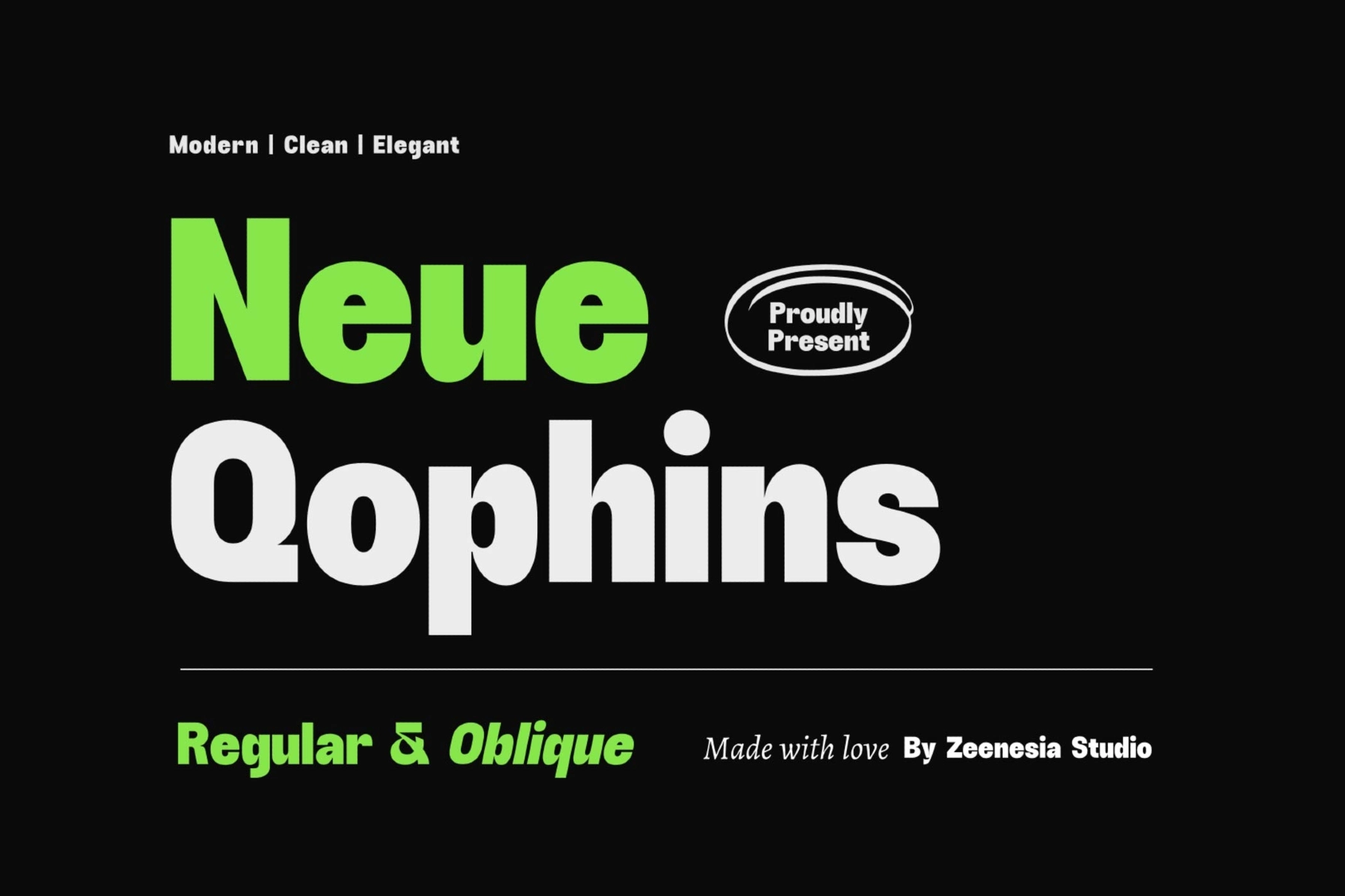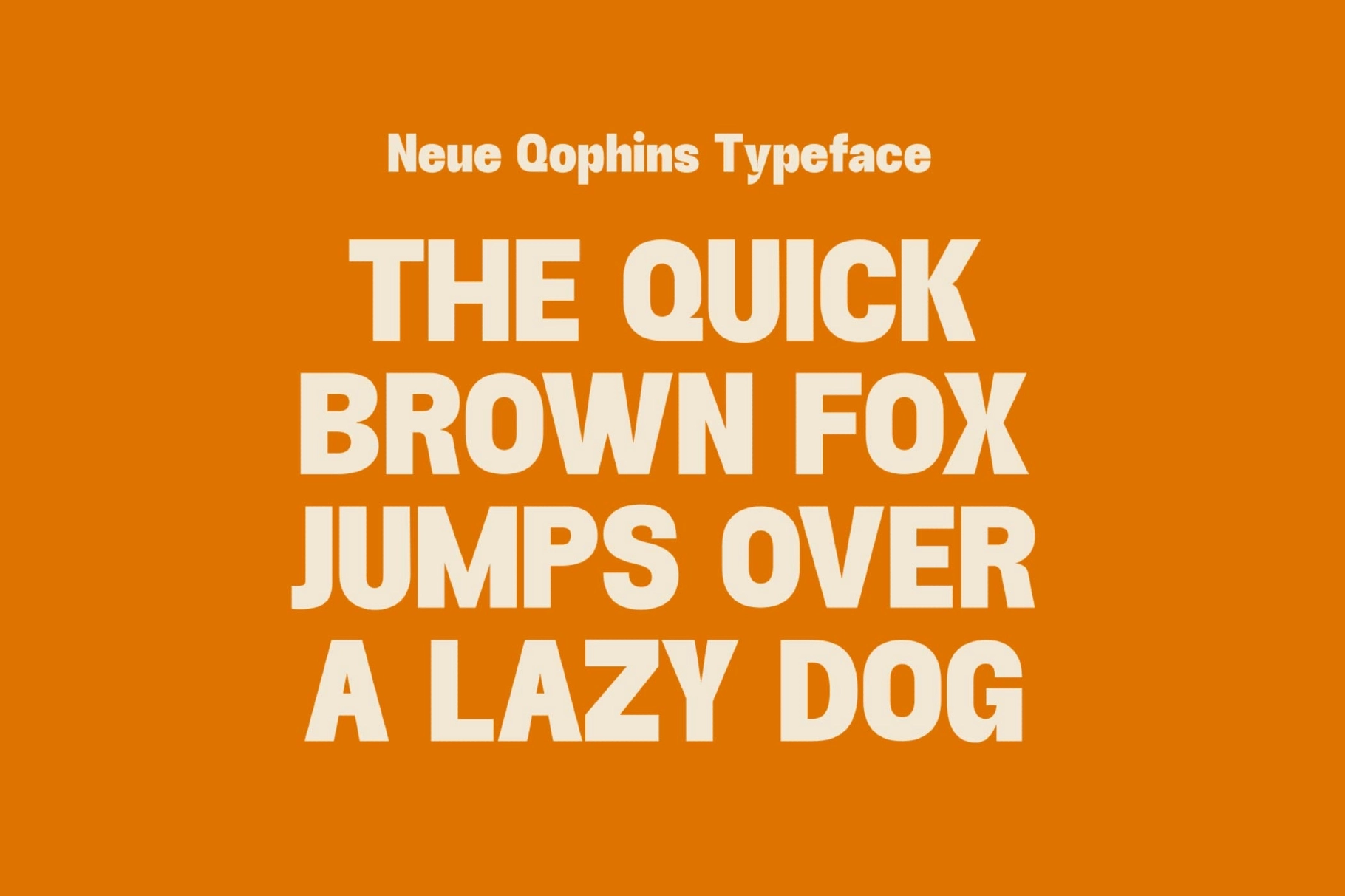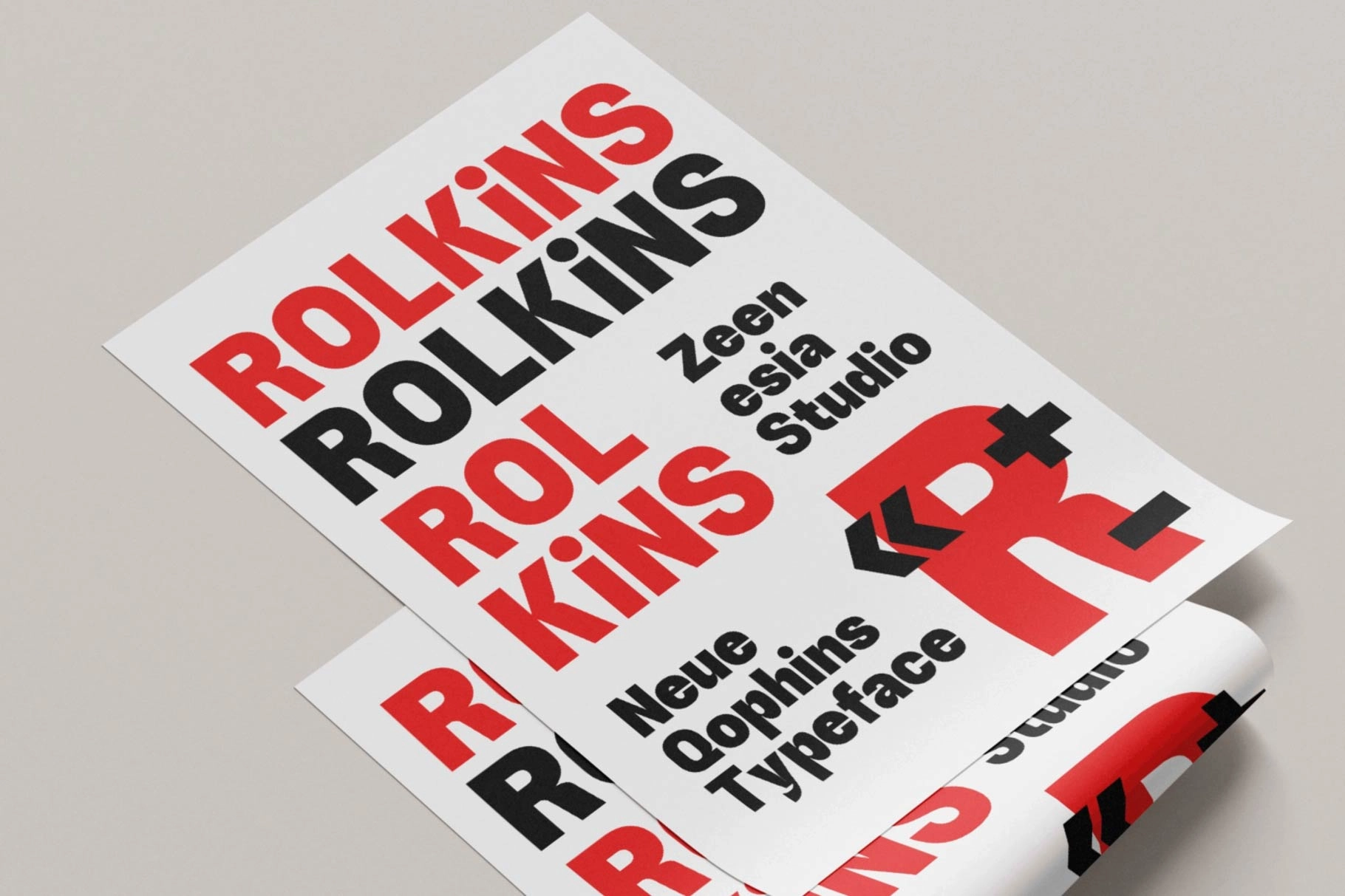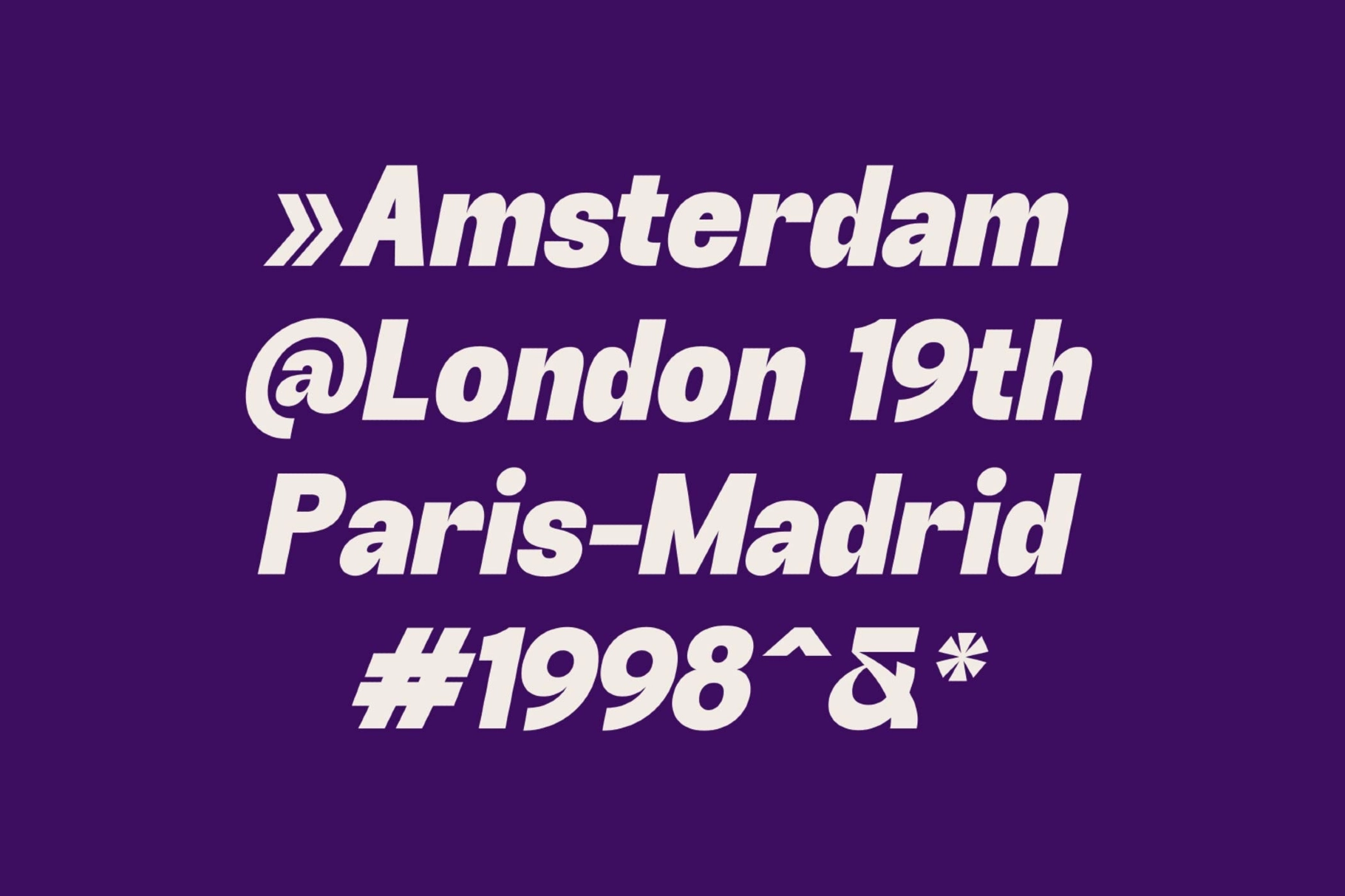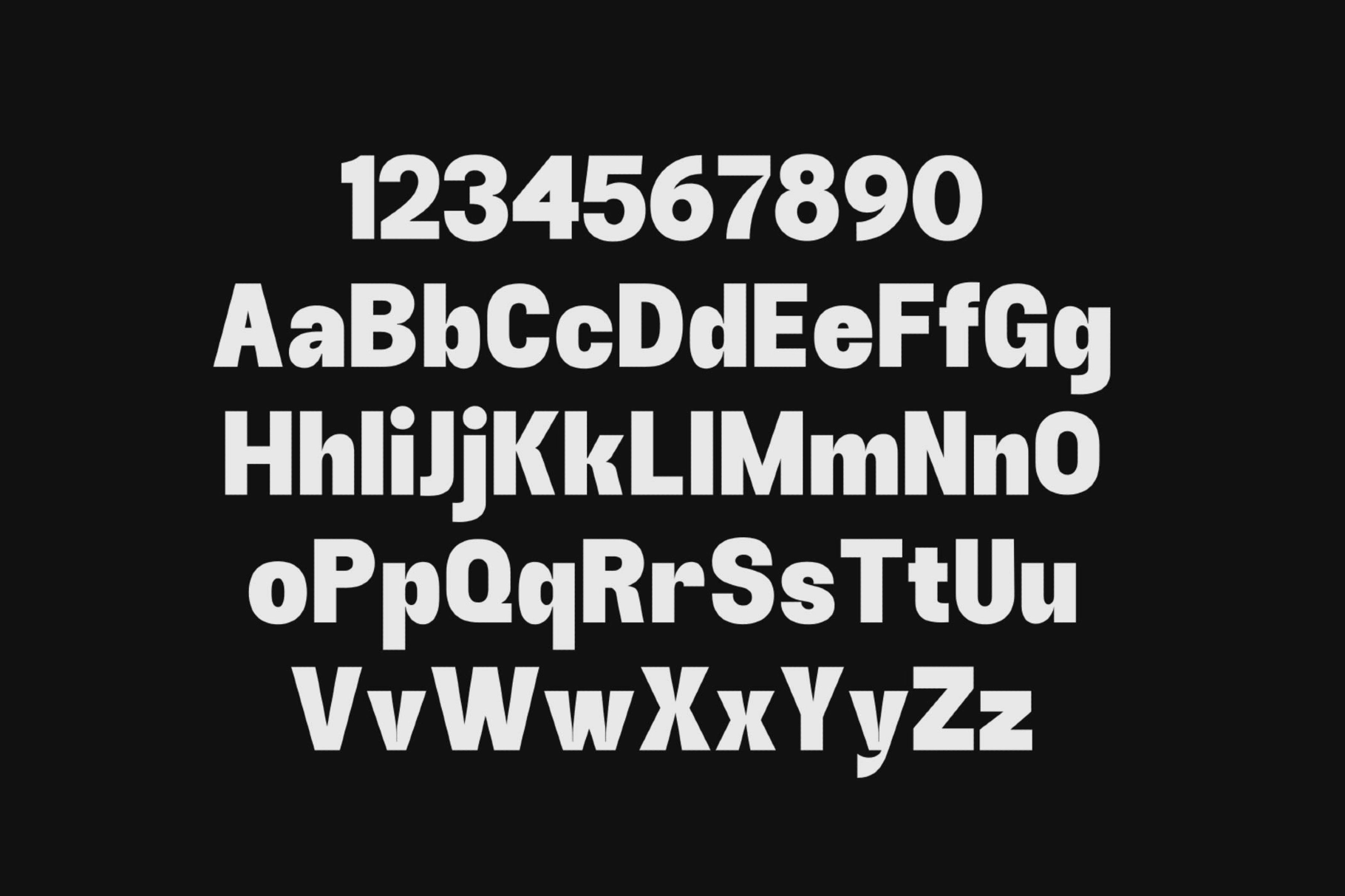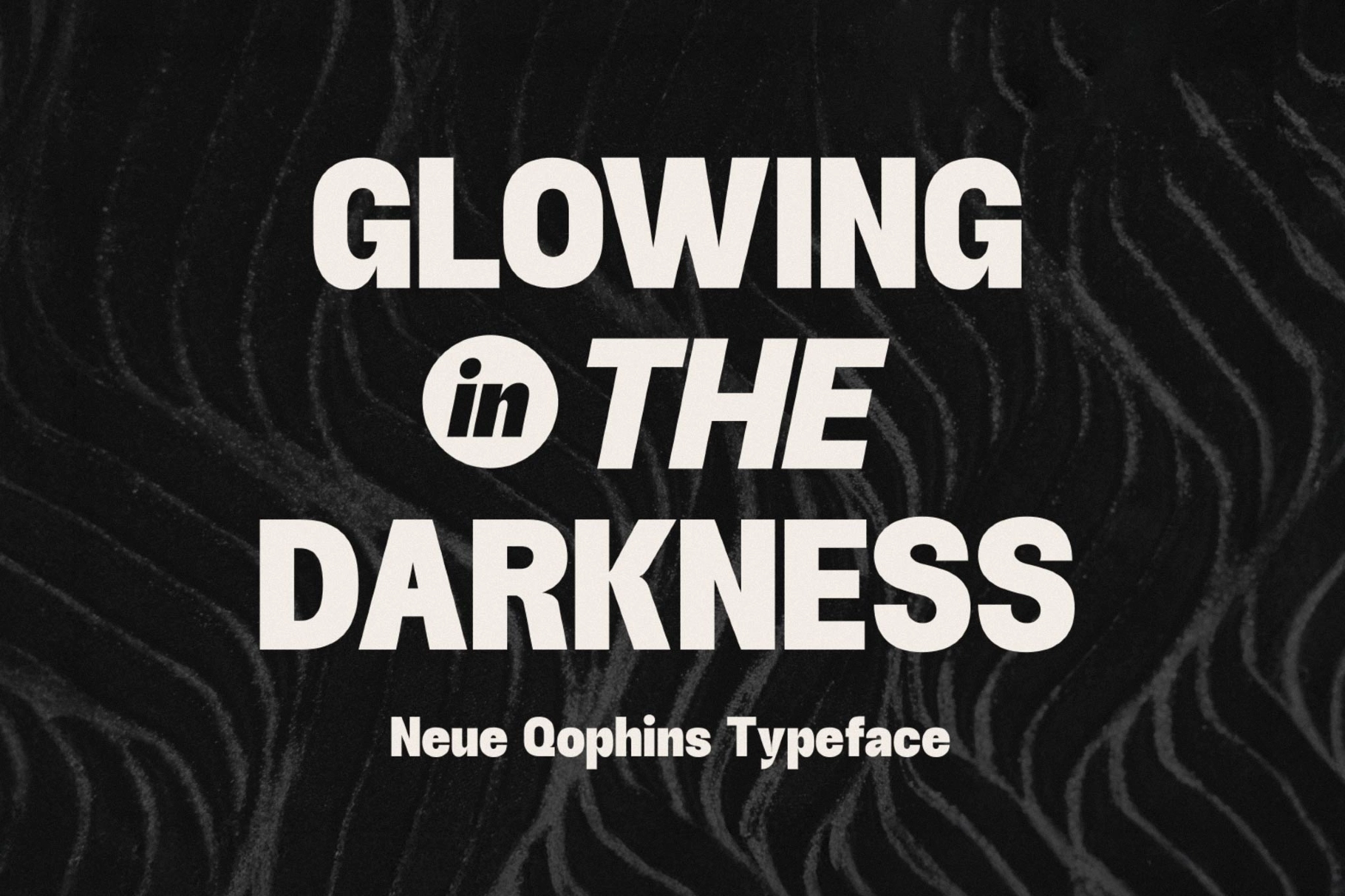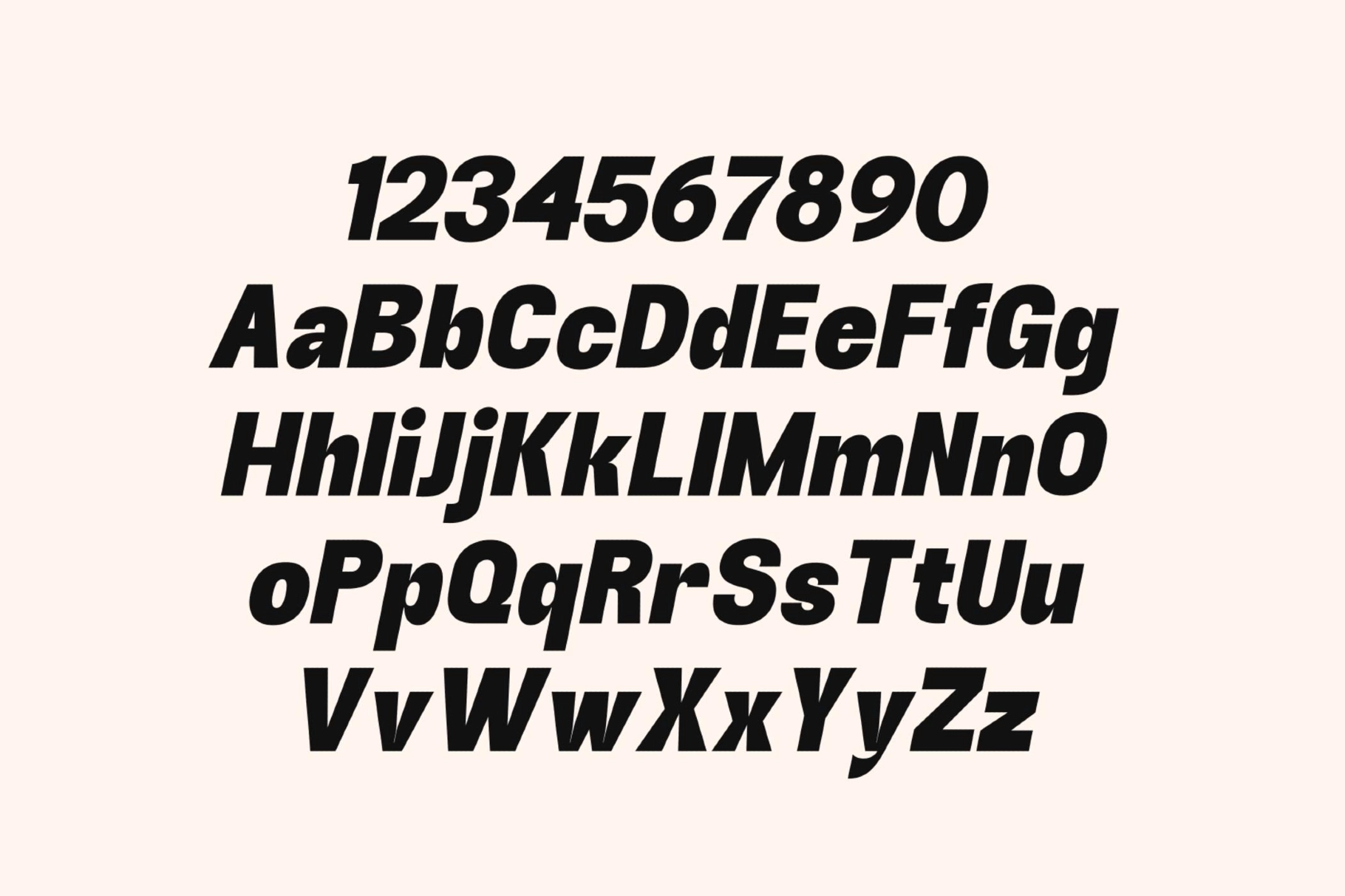
Neue Qophins - Bold Retro Sans Font
Oblique
Neue Qophins channels the lettering off old luggage tags and airline timetables, built as a bold retro sans font with sturdy, even strokes and a handful of flared terminals that nod to vintage travel signage. The Oblique companion carries the same weight into a slant, giving departure-board energy to angled headlines.
It reads best in short, stamped words — city names, dates, route numbers — the exact rhythm behind luggage labels and boarding stamps. Use it for travel branding, postcards, itinerary graphics, luggage tags, boarding-pass designs, city guides, hostel and airline branding, and retro poster headlines.